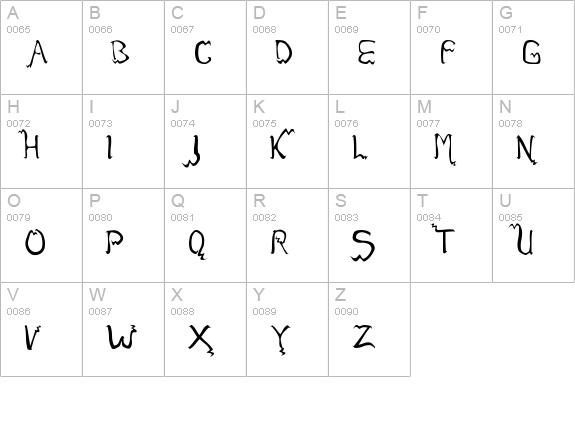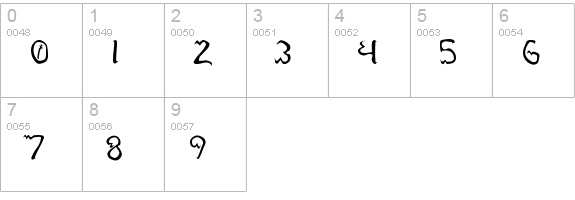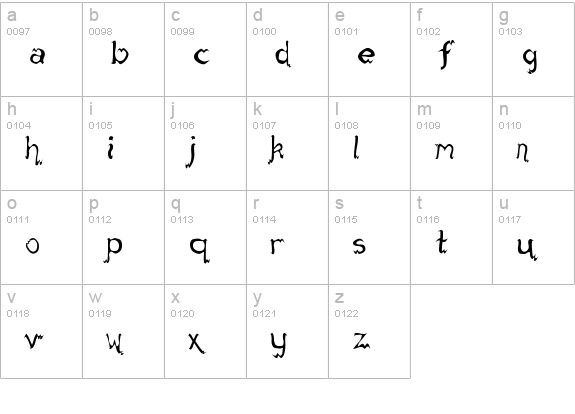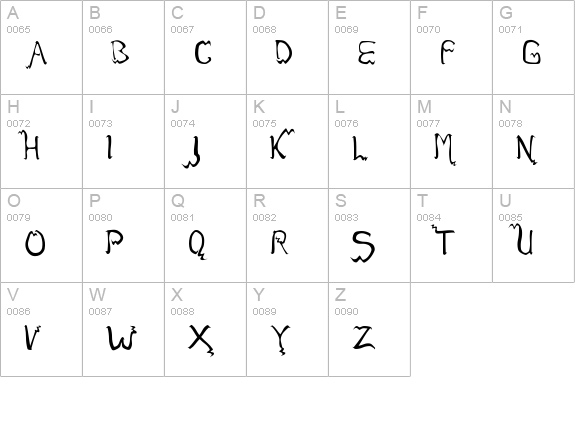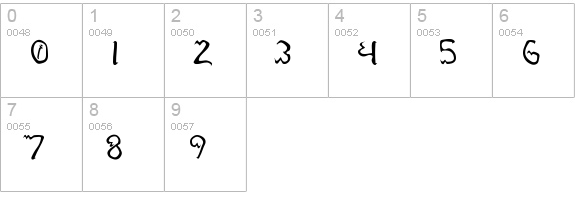
fack Font Details
Introducing Fack Font - a stunningly stylish typeface that is sure to captivate and inspire. With its unique blend of contemporary design and timeless elegance, Fack Font truly stands out from the crowd. This font boasts clean lines, intricate details, and a sense of sophistication that will elevate any project to new heights. What sets Fack Font apart from the rest is its versatility. Whether you're designing a logo, creating a website, or crafting a poster, this font effortlessly adapts to suit any creative endeavor. Its wide range of weights and styles allows for endless possibilities, ensuring that your message is conveyed with clarity and impact. But perhaps the best part? Fack Font is absolutely free. Yes, you read that right! This exceptional typeface can be freely downloaded and utilized for both personal and commercial projects. At FontsMarket.com, you can easily access and enjoy the beauty of Fack Font, without having to worry about breaking the bank. So why wait? Elevate your designs with the timeless allure of Fack Font. Download it for free at FontsMarket.com today and witness the transformative power of this remarkable typeface. Unleash your creativity and make a lasting impression with Fack Font - the epitome of style, elegance, and accessibility.